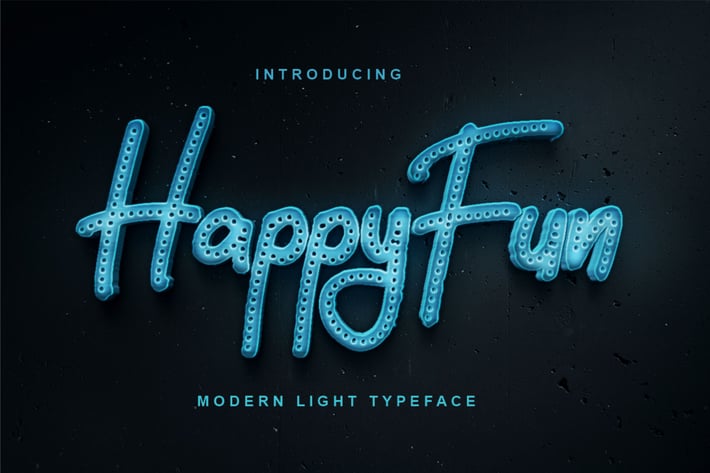
HappyFun | Modern Light Typeface
HappyFun | Modern Light Typeface with a calligraphy style, So beautiful on invitation like greeting cards, branding materials, business cards, quotes, posters, and more!